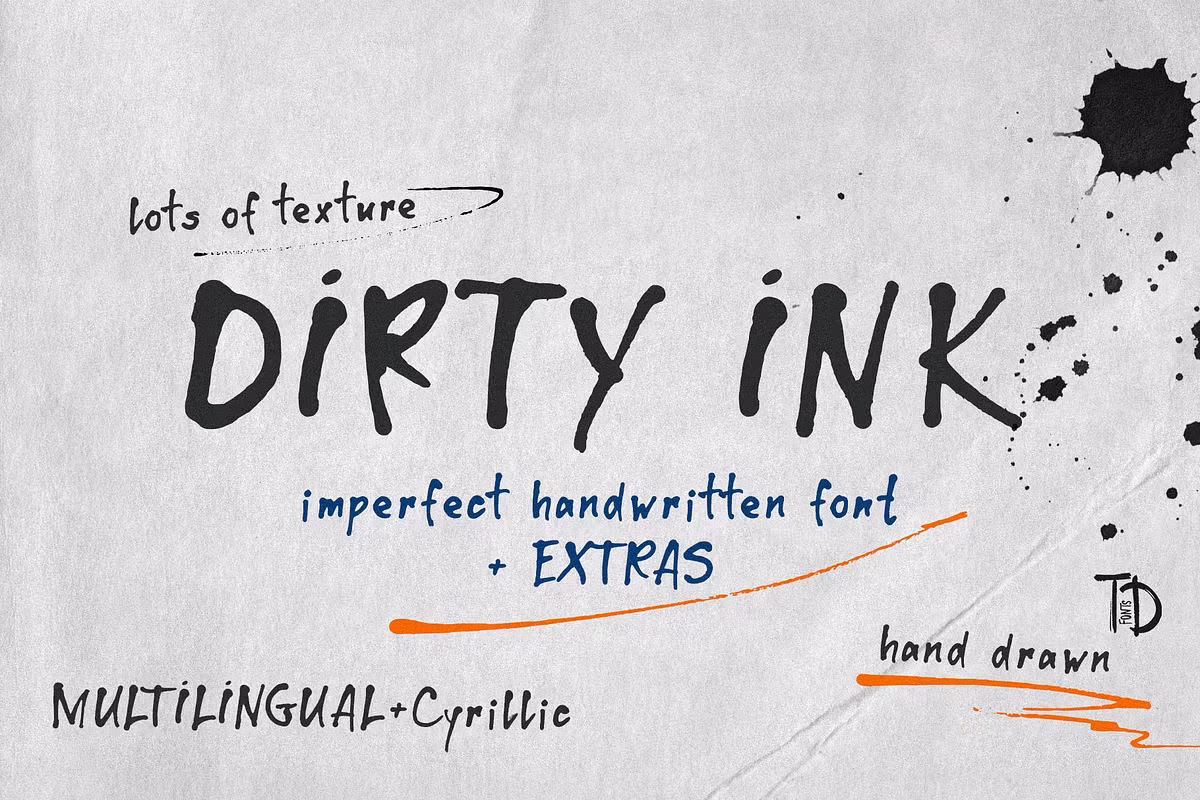
Dirty Ink Font Free Download is a playful, handwritten typeface that brings a fun, raw, and creative vibe to your designs. With its uneven strokes, rough edges, and casual feel, this font is perfect for casual branding, personal projects, social media graphics, posters, and anything that requires a unique, hand-drawn touch.
Its bold and expressive design makes it ideal for projects that need to stand out with a relaxed and carefree look. Whether you're working on a creative logo, a playful invitation, or an eye-catching social media post, Dirty Ink gives your typography a fresh and dynamic edge.